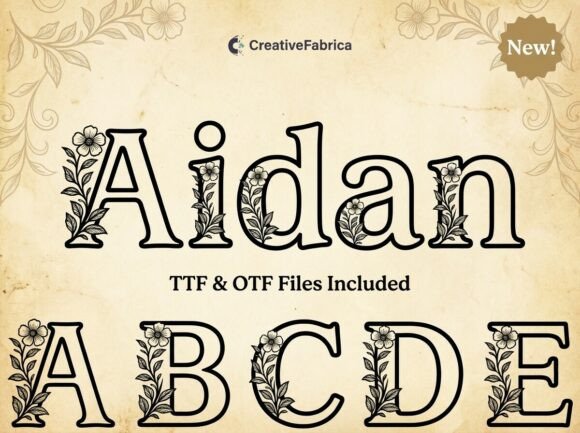
Introducing Aidan Font: The Ultimate Decorative Display Font for Creative Projects
In the world of typography, a font can make or break a design. If you’re a creator looking to add a touch of uniqueness and sophistication to your projects, look no further than Aidan Font. This stunning decorative display font is designed to be the center of attention, featuring intricate details and a strong visual personality that sets it apart from the ordinary.
Aidan Font is perfect for creators who want to make a statement with their typography. Its unique artistic elements and creative letterforms make it ideal for high-impact designs where the typography needs to do the talking. Whether you’re designing a modern poster, a unique brand identity, or eye-catching social media content, Aidan Font adds an instant “wow” factor to any project.
One of the standout features of Aidan Font is its versatility. This font is suitable for a wide range of design applications, including:
- Poster Design: Create headlines that people can’t look away from. Aidan Font is perfect for designing attention-grabbing posters that showcase your message in a bold and creative way.
- Branding & Logos: Build a unique identity for creative businesses. With its intricate details and artistic elements, Aidan Font is ideal for designing distinctive logos and brand identities that set you apart from the competition.
- Apparel & Merch: Perfect for T-shirts, hoodies, and tote bag designs. Aidan Font adds a touch of sophistication and style to any apparel or merchandise design.
- Social Media: Make your quotes and announcements stand out in the feed. Use Aidan Font to create eye-catching social media content that grabs attention and drives engagement.
- Packaging: Give your products a premium feel with Aidan Font. This font is perfect for designing labels, packaging, and other marketing materials that require a high-end look and feel.
Professional and Polished Finish
While Aidan Font is undoubtedly a decorative display font, it’s also designed to maintain a professional and polished finish. This makes it perfect for use in a wide range of design applications, from bold headlines and artistic logos to creative packaging and marketing materials.
Why Choose Aidan Font?
So why choose Aidan Font for your next design project? Here are just a few reasons:
- Unique and Creative: Aidan Font offers a unique and creative way to add visual interest to your designs.
- High-Impact Typography: This font is designed to make a statement, making it perfect for high-impact designs where the typography needs to do the talking.
- Versatile: Aidan Font is suitable for a wide range of design applications, from posters and logos to apparel and packaging.
- Professional Finish: Despite its decorative nature, Aidan Font maintains a professional and polished finish that’s perfect for use in a wide range of design applications.
If you’re looking for a font that will add a touch of uniqueness and sophistication to your designs, look no further than Aidan Font. With its intricate details, creative letterforms, and strong visual personality, this stunning decorative display font is perfect for creators who want to break away from the ordinary. Whether you’re designing a modern poster, a unique brand identity, or eye-catching social media content, Aidan Font is the perfect choice.